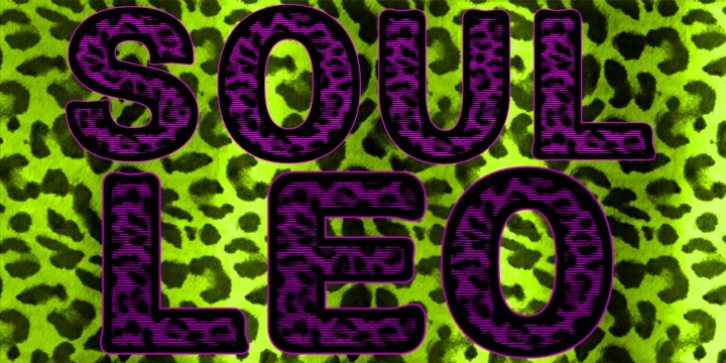
Soul Leo was designed by Otto Maurer and published by Otto Maurer. Soul Leo contains 3 styles and family package options.
Soul Leo ist a special Version of my font „Soul" (soul ultra black). For a long Time i want to make a Font like this. Before FL6 that was impossible. I know it is a big File Size for a Font with all the Graphics but i need a Font like this for a LadyProjekt. And so i did it myself. I hope you like it as i do!
Soul Leo col·
Soul Leo Regular·